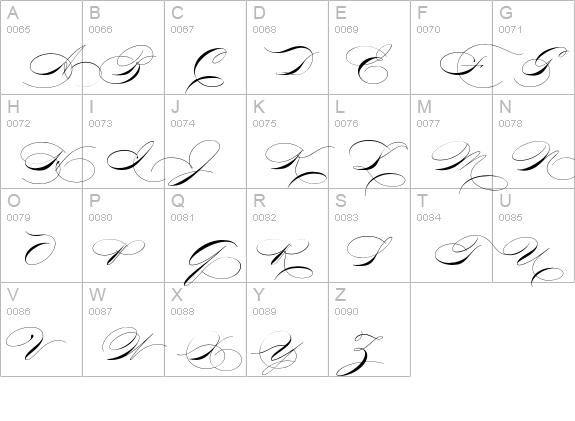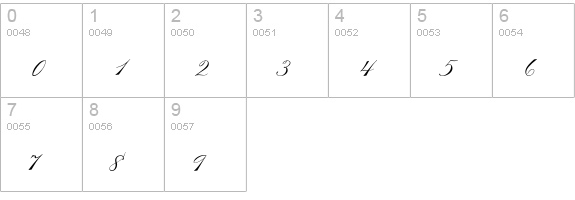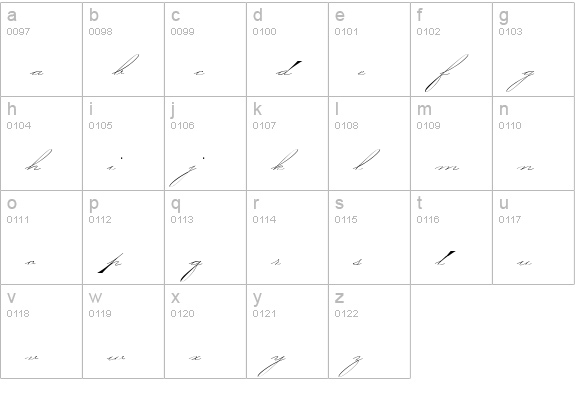
P22ZanerTwo Font Details
P22ZanerTwo font is a classic and elegant typeface that exudes sophistication and charm. Its refined letterforms are inspired by the timeless beauty of traditional calligraphy, making it perfect for adding a touch of elegance to any project. The graceful strokes and intricate details of P22ZanerTwo font make it a versatile choice for a wide range of design applications, from wedding invitations to branding materials. What sets P22ZanerTwo font apart is not only its timeless aesthetic appeal but also its accessibility. This exquisite font is available for free download at FontsMarket.com, making it easily accessible to designers and creators looking to elevate their projects with a touch of refinement. Whether you're working on a personal project or a professional design, P22ZanerTwo font is sure to make a lasting impression with its beauty and grace.